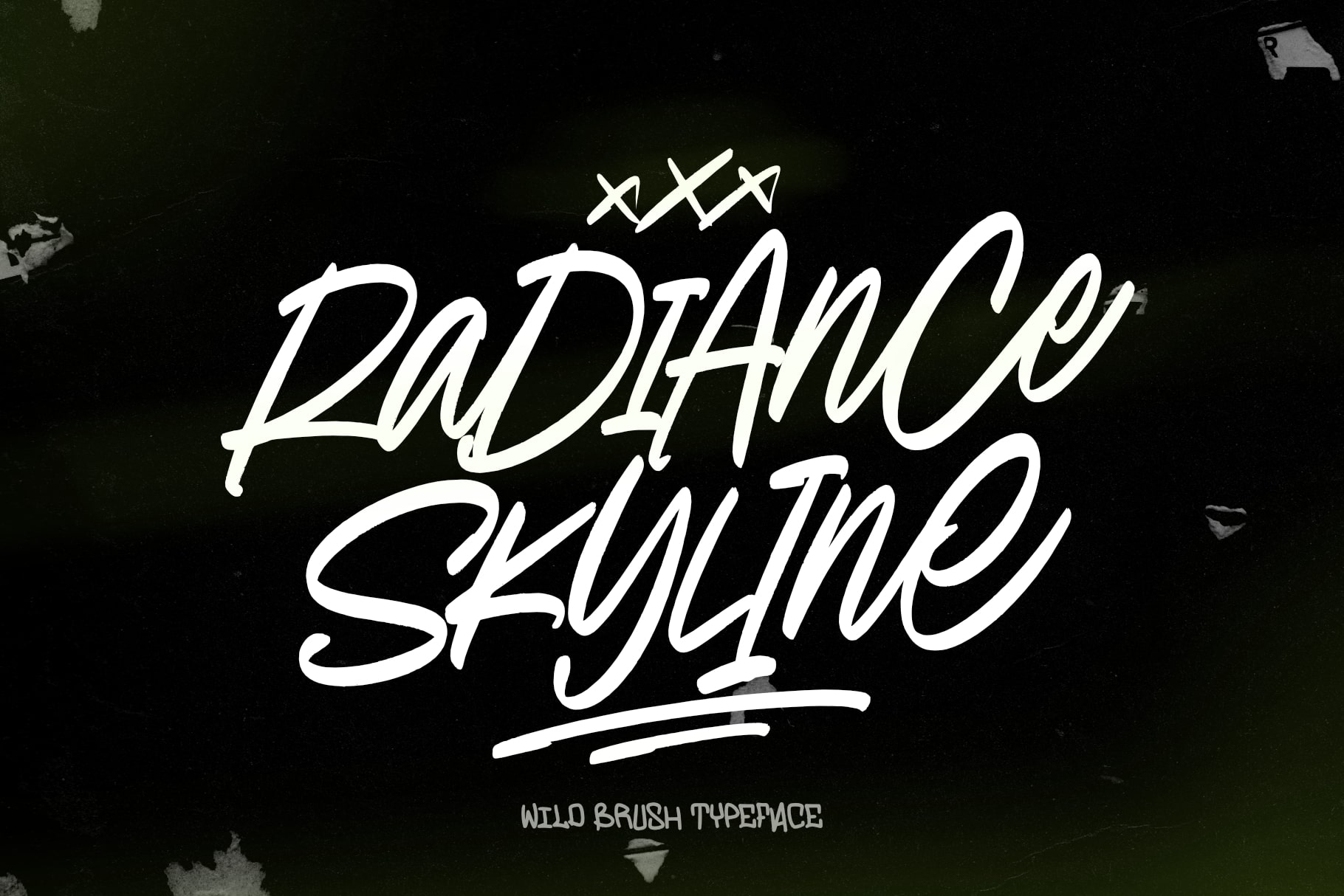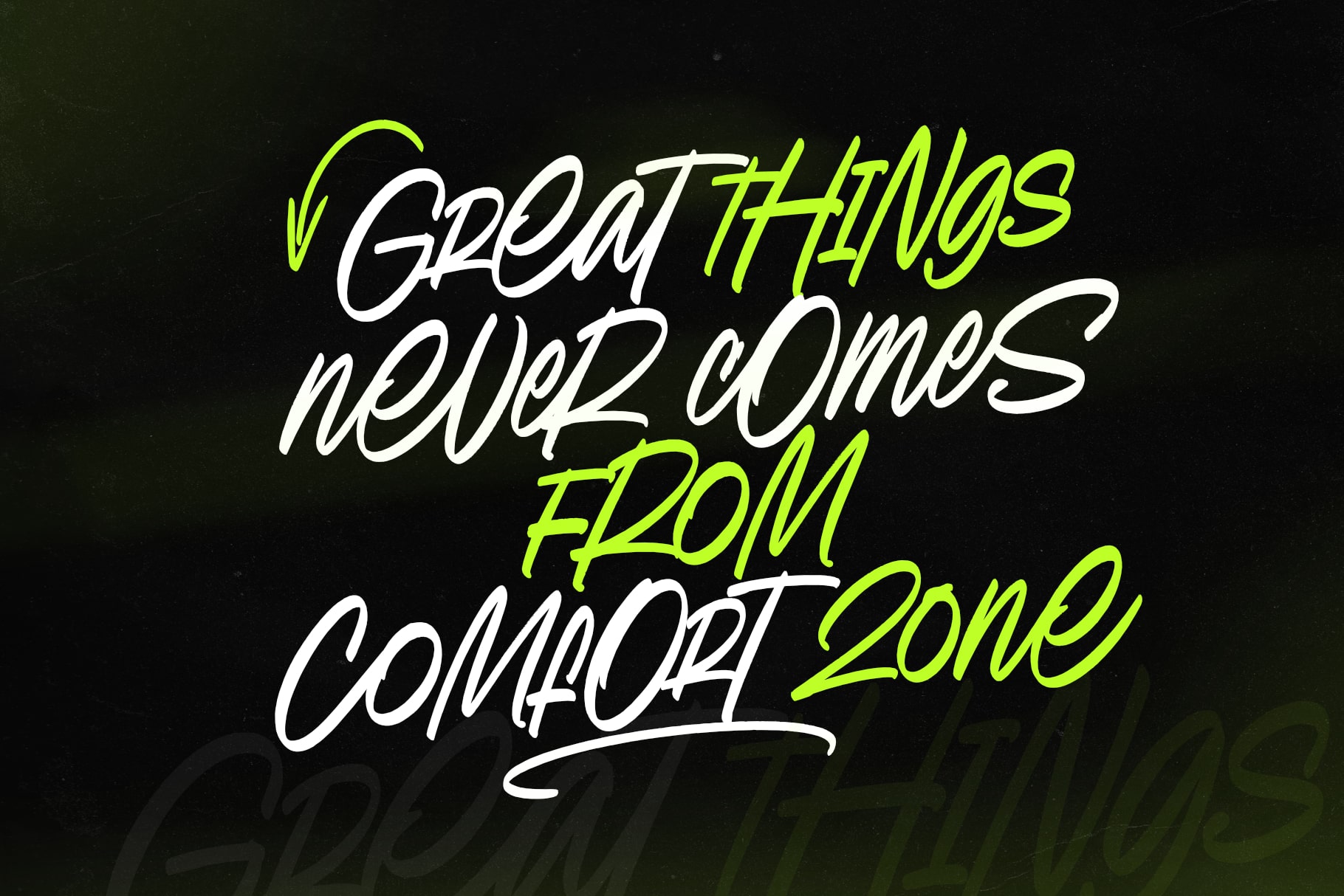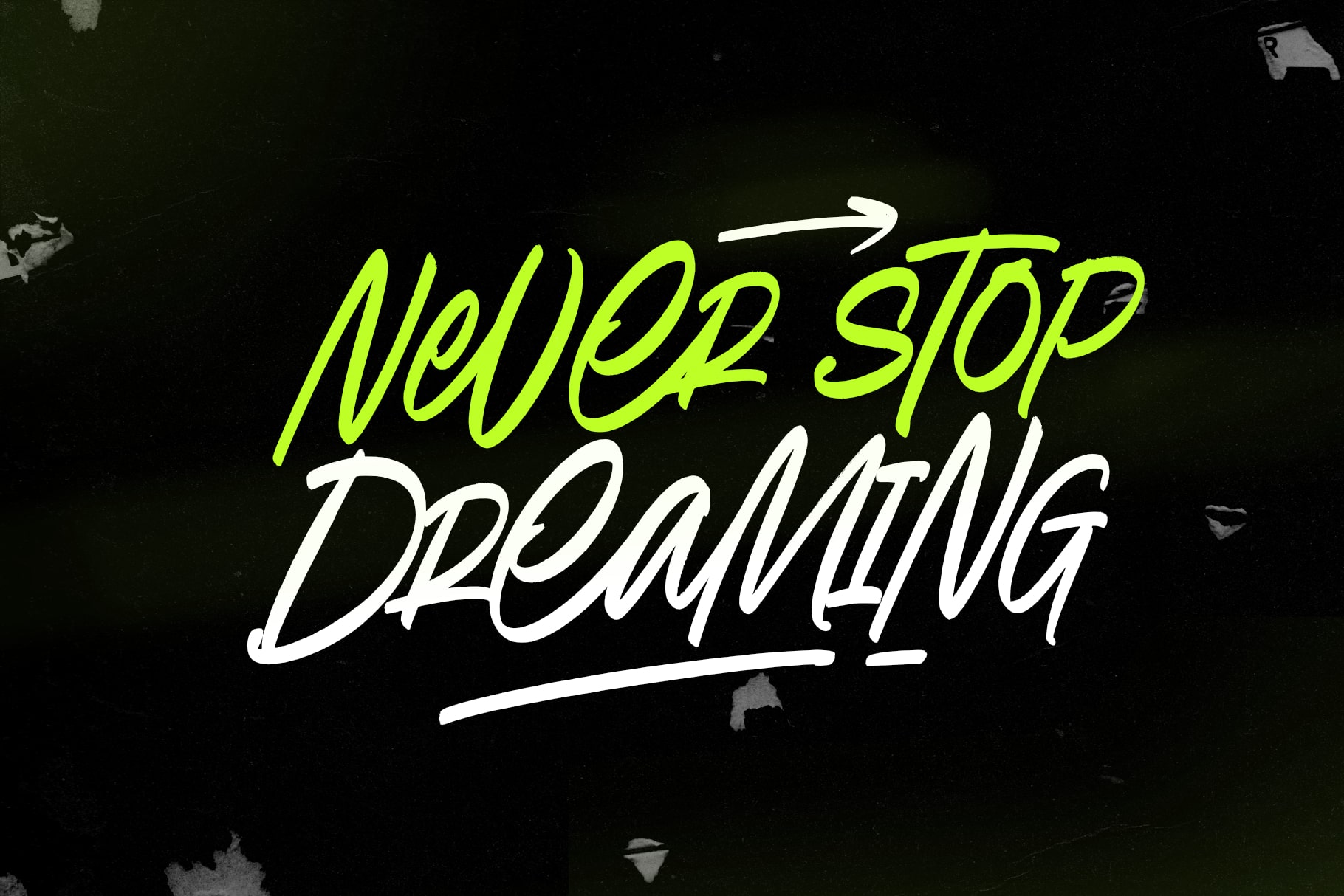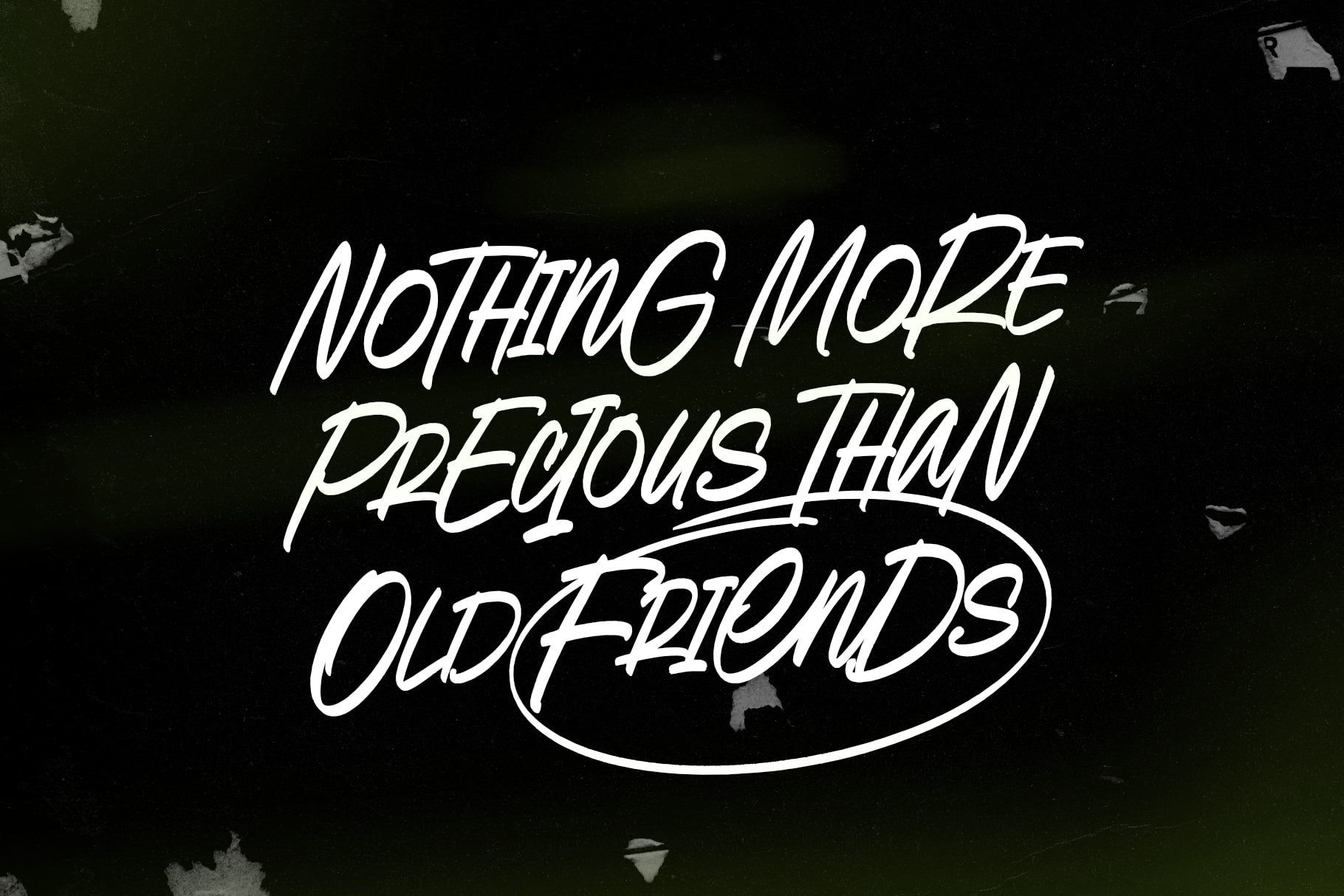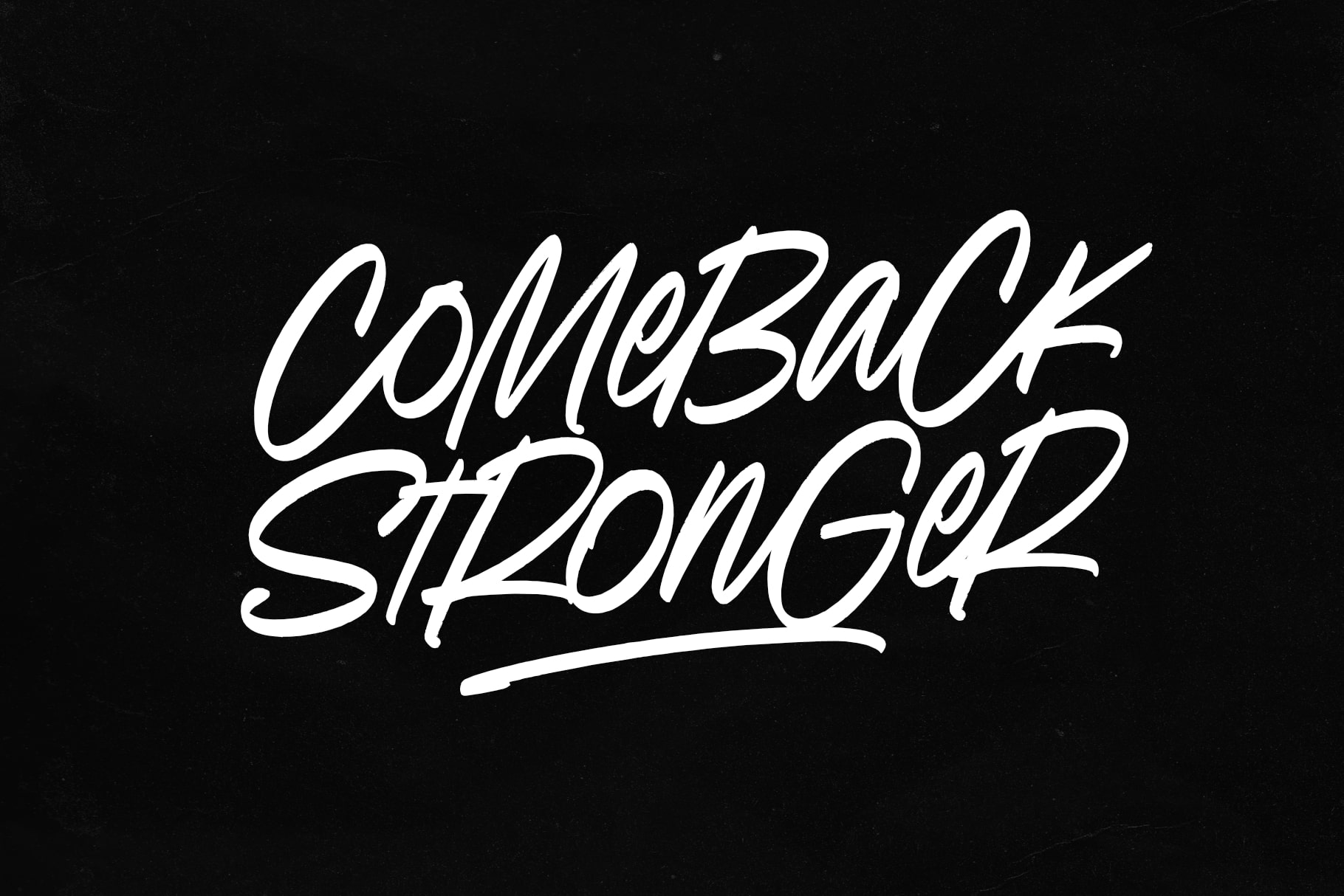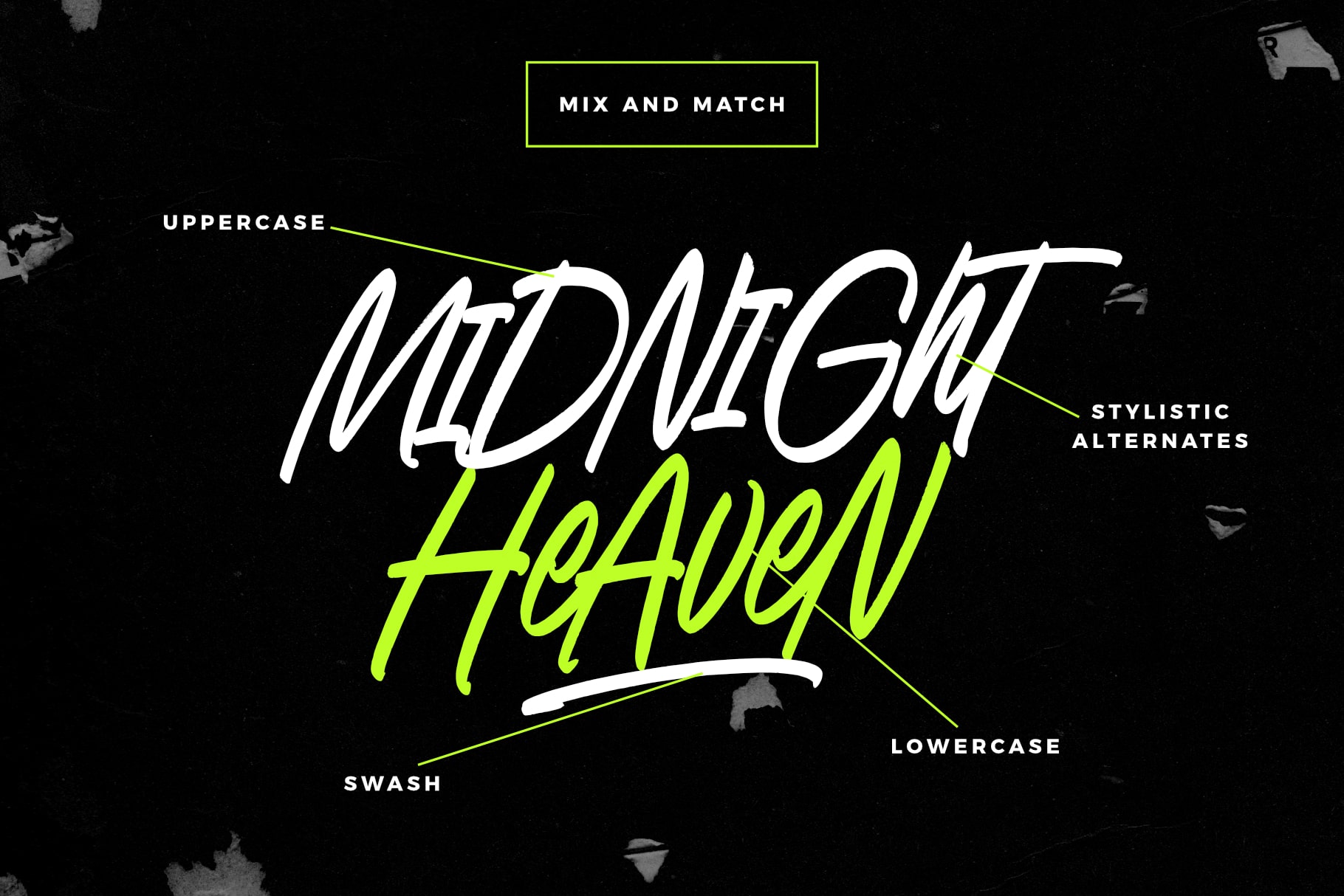
- Radiance Skyline
Radiance Skyline is a striking mix and match typeface that radiates stylish aesthetic and modern stlyle. Its flowing, graceful strokes and carefully crafted letterforms make it the perfect choice for designs that require a refined yet contemporary touch. Ideal for branding, invitations, social media graphics, and more, Radiance Skyline adds a luminous quality to any project, capturing attention with its fluid beauty.